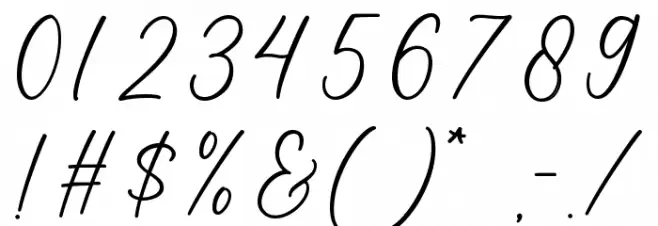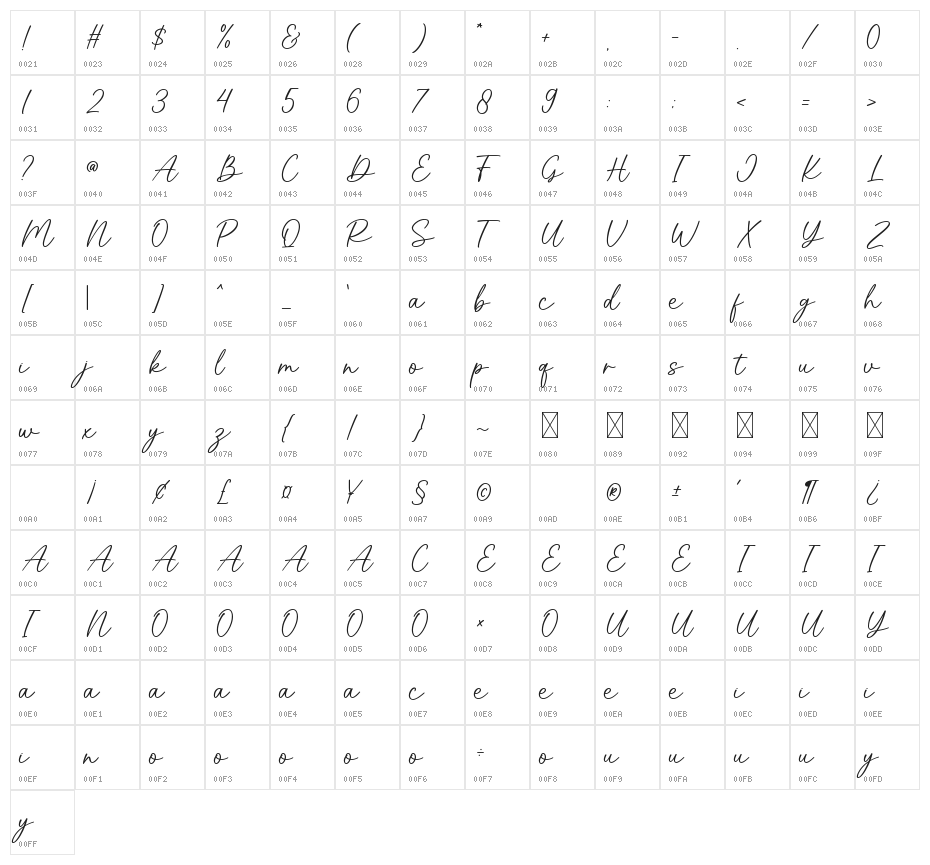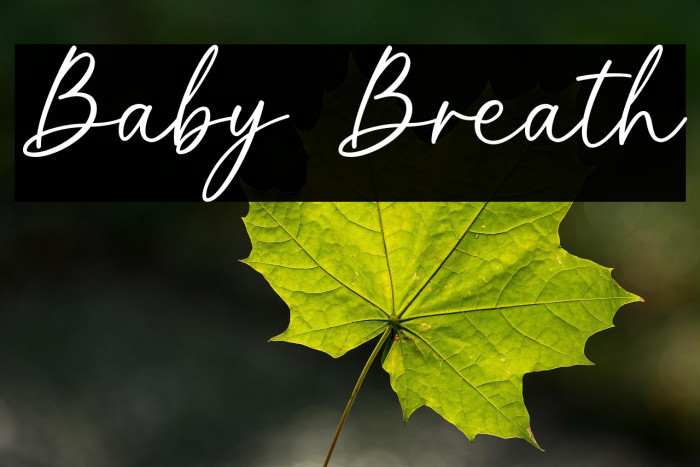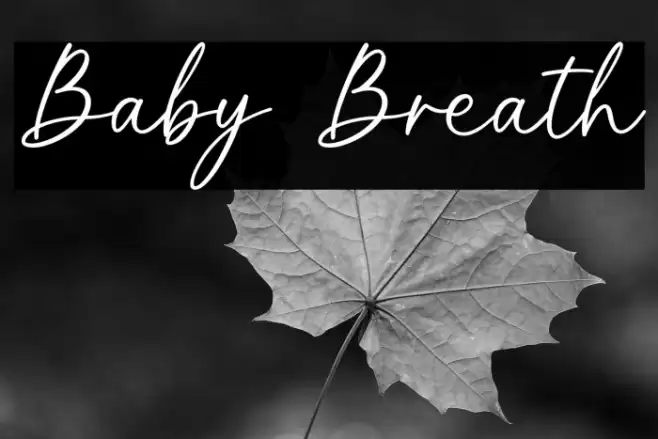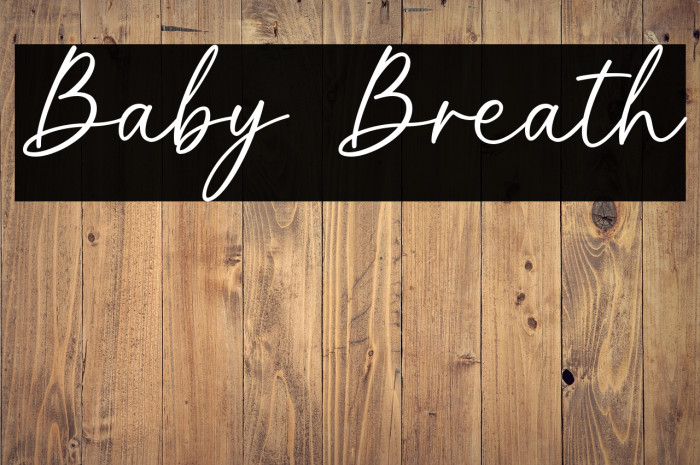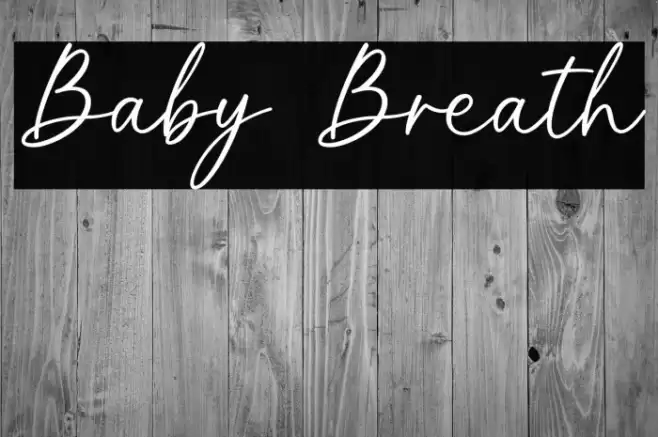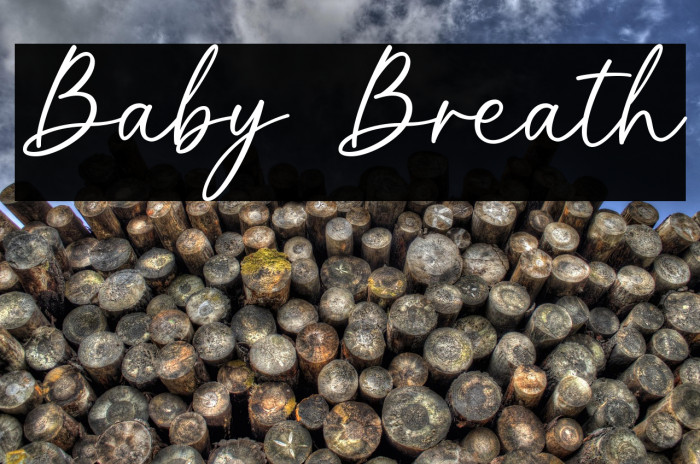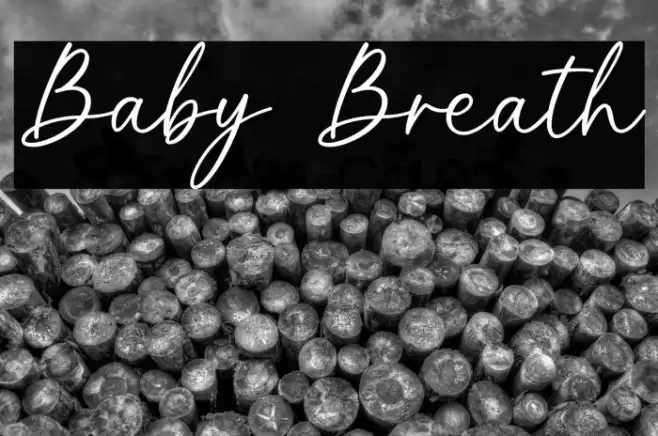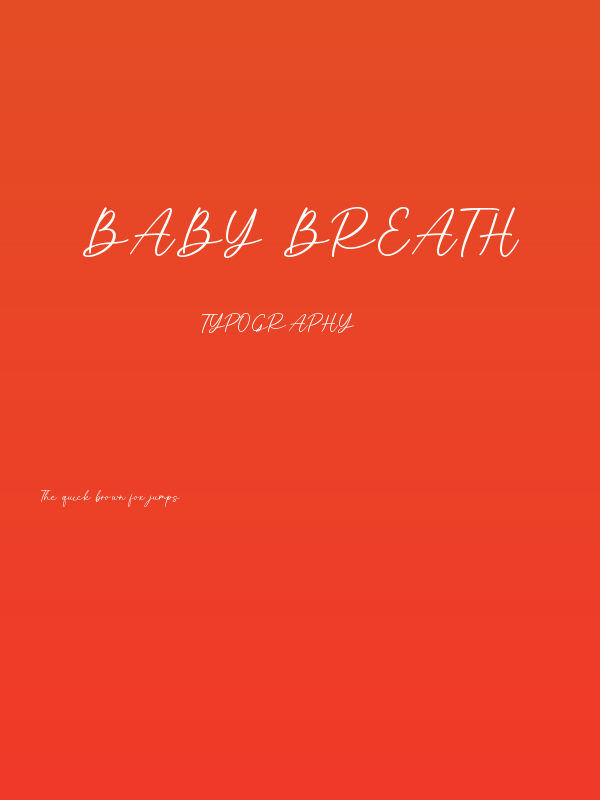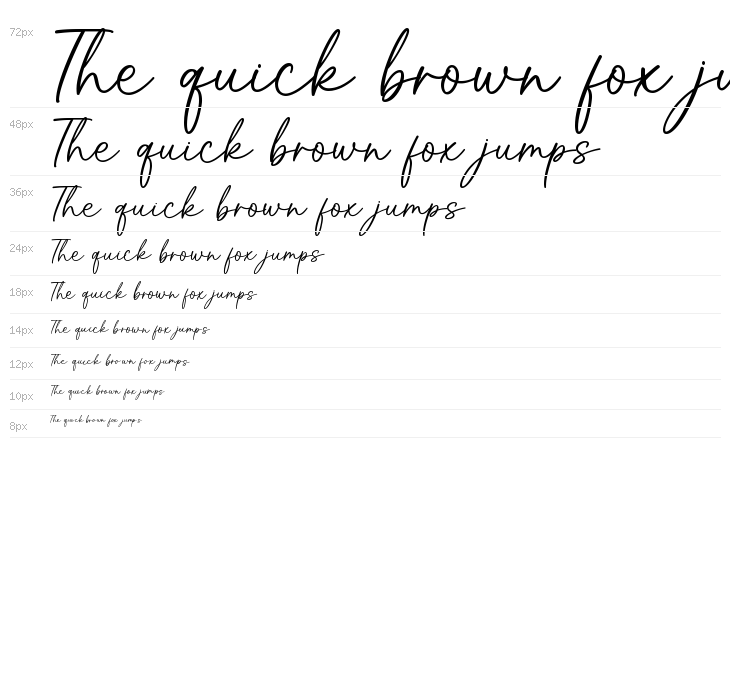
Baby Breath Font
Baby Breath Description
This font exudes a graceful and elegant handwritten style, characterized by its fluid and connected letterforms. The uppercase letters maintain a consistent slant, adding a sense of movement and dynamism. The lowercase letters are equally fluid, with smooth transitions between strokes, creating a harmonious and cohesive appearance. The numerals are clear and legible, maintaining the same flowing style as the letters. Special characters are thoughtfully designed to match the overall aesthetic, ensuring a seamless integration with text. This font's delicate and sophisticated look makes it ideal for projects that require a personal touch.
| Proposed Projects | Ideal for wedding invitations, greeting cards, personal branding, and elegant packaging. |